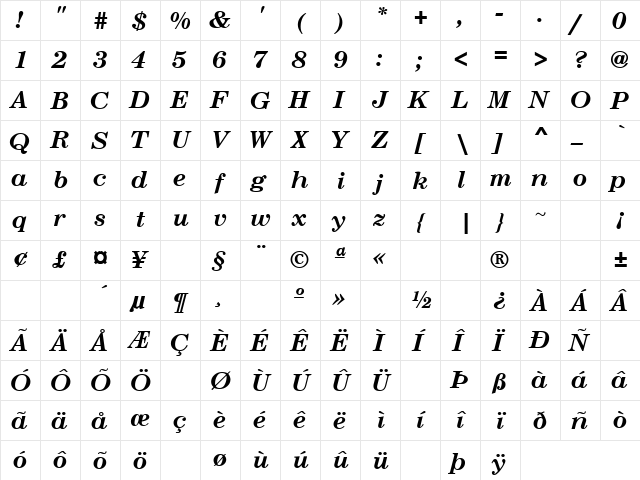
Uncle Salty 3 Regular
Design Context for Uncle Salty 3 Typeface
Uncle Salty 3 offers clean, dependable letterforms without strong stylistic allegiance, making it a practical choice for designers who need flexibility.
Pro Tip: Pair Uncle Salty 3 with a font of contrasting weight or personality to build a more expressive typographic hierarchy.